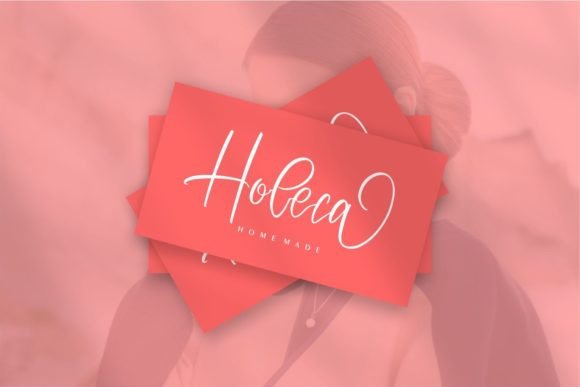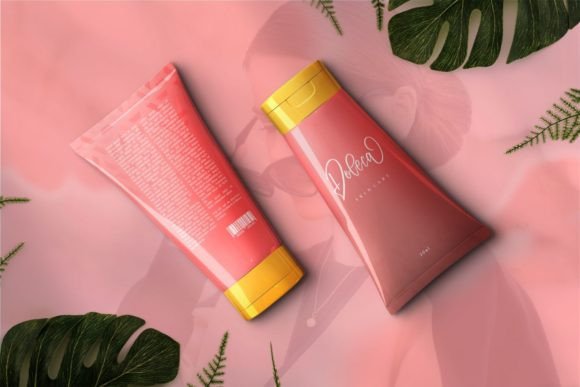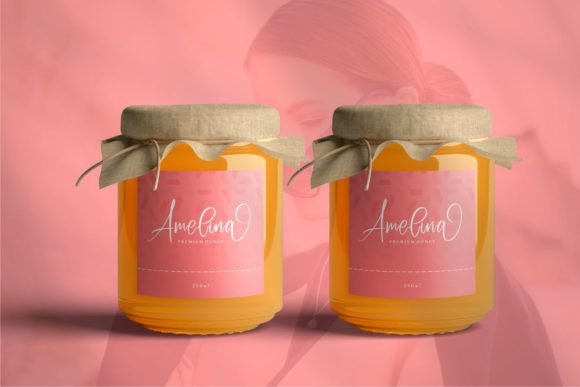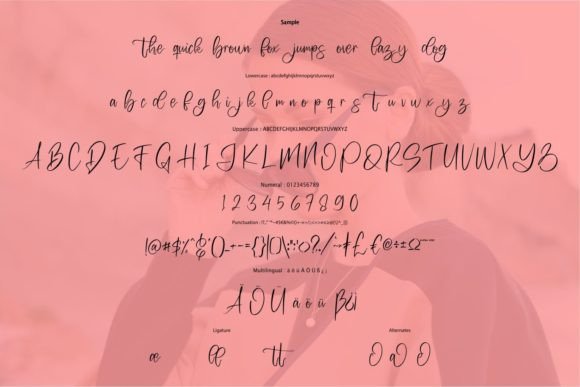
Ambalocey Falode Font
About Ambalocey Falode Font
**Ambalocey Falode** is a magical script font that has been crafted with a touch of elegance, making it a stunning choice for a wide range of creative applications. Whether you’re in search of fonts for Instagram posts or calligraphy scripts for DIY projects, this font has the power to transform any creative idea into a true work of art.
One of the standout features of Ambalocey Falode is its magical and elegant design. Each letter is carefully created to exude a sense of beauty and sophistication, making this font an excellent choice for projects where you want to create a true piece of art.
Ambalocey Falode’s versatility shines in various design contexts. It is well-suited for crafting social media graphics, branding materials, wedding invitations, posters, magazines, and much more. Its elegant and magical appearance ensures that your work is both visually appealing and captivating.
For social media, this font adds a touch of elegance and creativity to your posts and graphics, making them visually appealing and engaging.
In branding and logo design, Ambalocey Falode infuses your brand identity with a unique and memorable personality, making your business stand out and leave a lasting impression.
Wedding invitations and stationery designs benefit from the font’s elegant and magical demeanor, enhancing the beauty and refinement of your creations.
In summary, Ambalocey Falode is a magical script font that impresses with its elegant and sophisticated style. Its versatility and magical design make it a wonderful choice for various design projects, where it can infuse your work with a sense of beauty and artistry. Embrace Ambalocey Falode to create visually captivating and enchanting designs that captivate your audience.